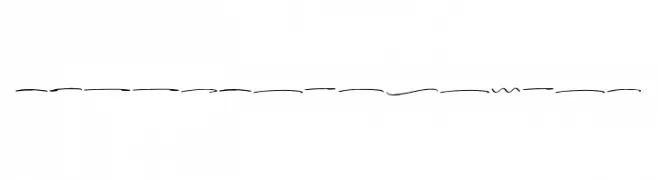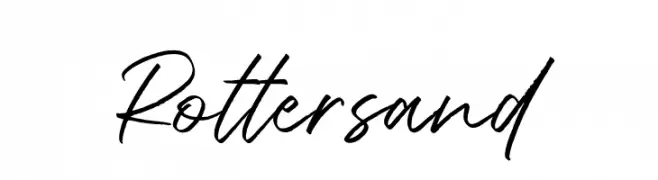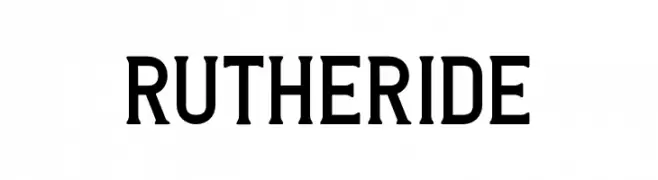
A graceful cursive font with elegant, sweeping strokes and decorative flourishes.
A whimsical, decorative font with swash-like, flowing lines and playful embellishments.
A dynamic and fluid handwritten script font with elegant, flowing strokes.
A bold serif font with angular serifs and a modern twist.
A light, condensed font with a modern yet vintage feel, featuring elegant and refined strokes.
A fluid, cursive font with elegant, connected characters.
A graceful and elegant script font with flowing, interconnected letters.
A bold, calligraphic font with flowing, decorative curves.
A bold, expressive brush-style font with dynamic strokes and a handcrafted appearance.
A bold, expressive script font with fluid, dynamic strokes.